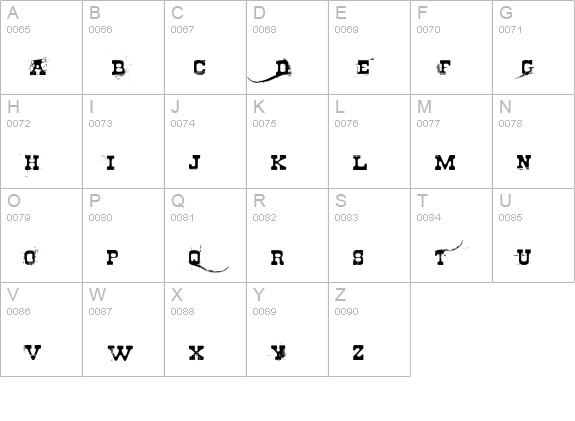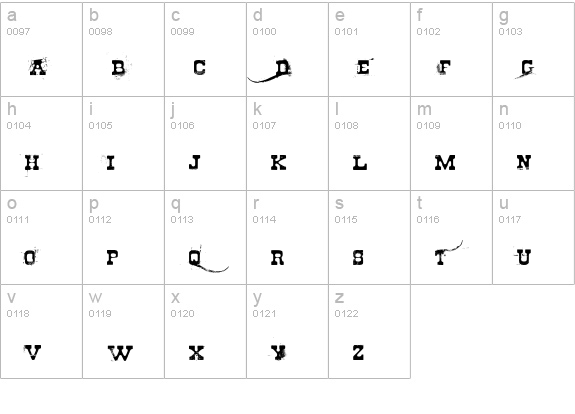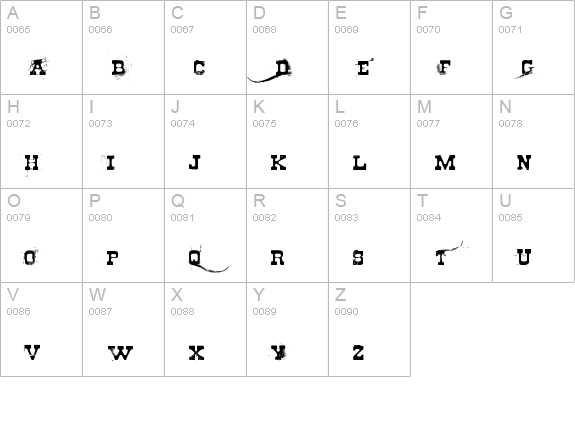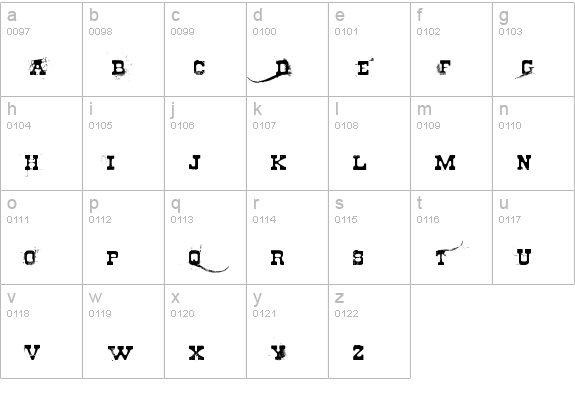
Cheap stealer Font Details
Cheap Stealer font is a playful and quirky typeface that exudes a sense of mischievous charm. With its irregular lines and off-kilter letterforms, this font is perfect for adding a touch of whimsy to your designs. The unique character of Cheap Stealer font makes it stand out from the crowd and adds a fun and lighthearted element to any project. Best of all, Cheap Stealer font is available for free download at FontsMarket.com. Whether you're working on a poster, a logo, or any other creative project, this font is sure to bring a playful and unique touch to your designs. Download Cheap Stealer font today and unleash your creativity with this free and delightful typeface.